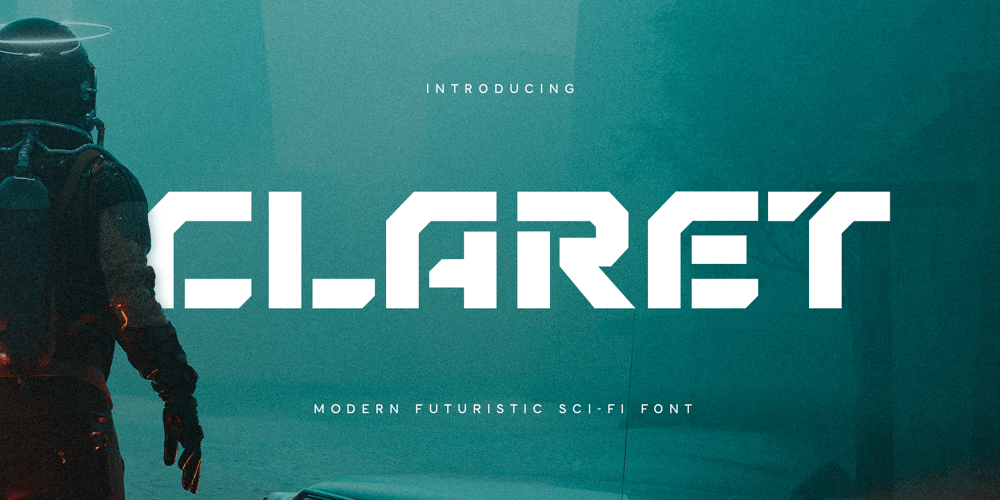
Claret Font Family was designed by Zamroni Hamzah and published by Sensatype Studio. Claret contains 1 styles and family package options. CLARET is a Futuristic Technology Sci-fi Font that created special for Logo, Film Title, Techno Poster, Technology Design and more stand out typography for Sci-fi, futuristic and technology. It’s so perfect to add your style and headline overview for Sci-fi, technology, film, and Futuristic theme. And specially for this font, we crafted for bold style and modern feels so enjoy to create any project that will show your main idea out.CLARET Modern Futuristic Sci-fi Font ready with: Creative characters prepared to get best results 4 files format already Preview as a inspirations that you can do with CLARET font Ready with All Uppercase characters Wish you enjoy our font. ๐